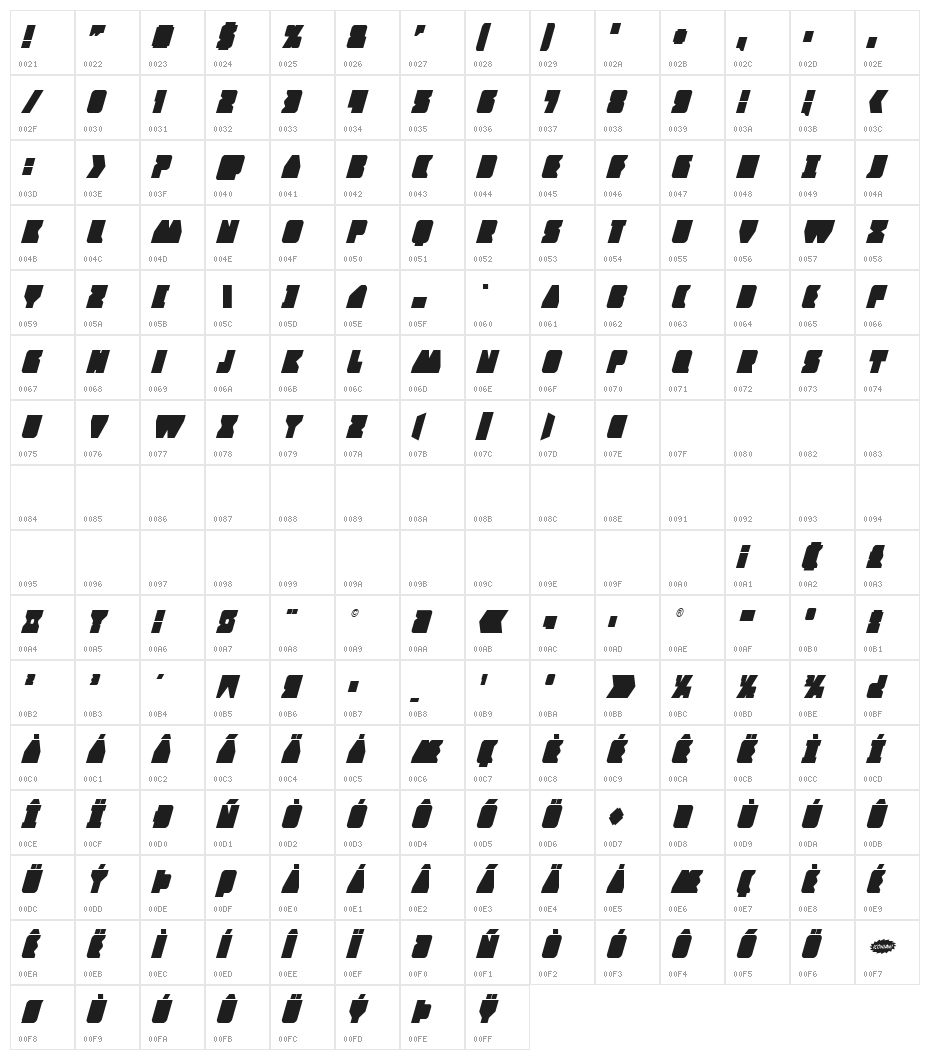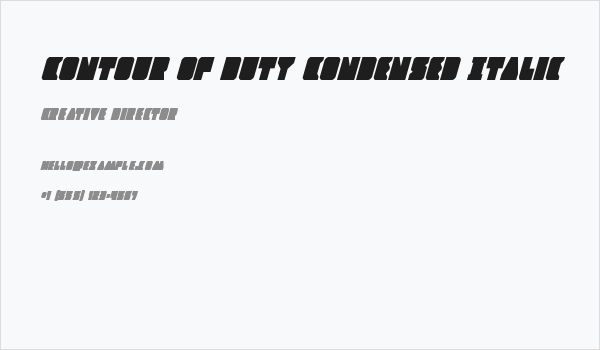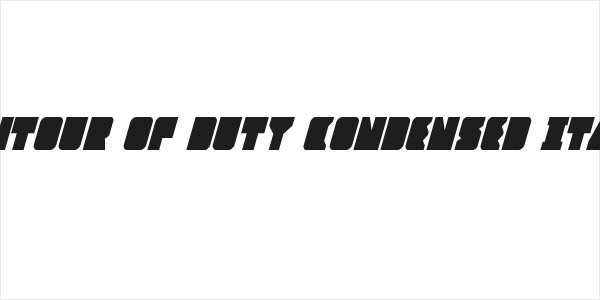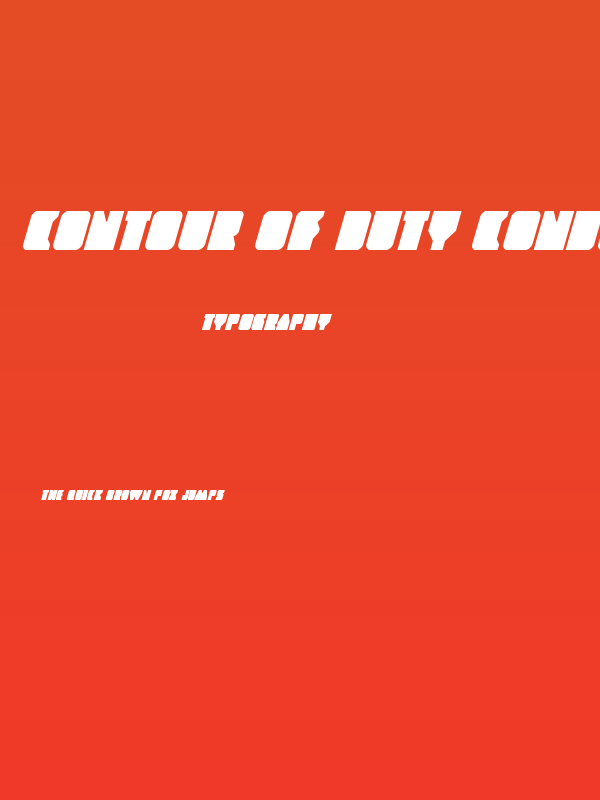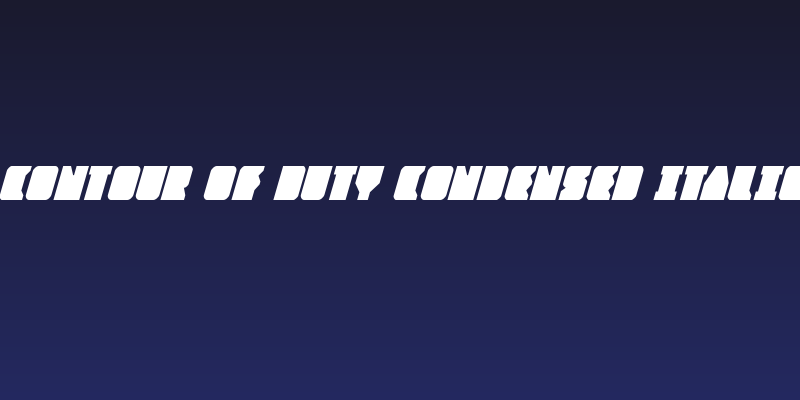
Contour of Duty Condensed Italic Font
Contour of Duty Condensed Italic Description
This font features a bold and dynamic style with a strong presence. The characters are heavily condensed and italicized, giving them a forward-leaning, energetic appearance. The thick strokes and sharp angles create a sense of urgency and movement, making it ideal for impactful designs. The uppercase and lowercase letters maintain a consistent style, with the numerals and special characters following suit. The font's design is modern and assertive, suitable for projects that require a bold statement.
Proposed ProjectsIdeal for sports branding, action movie posters, video game titles, and dynamic advertising campaigns.